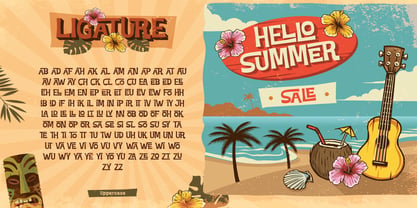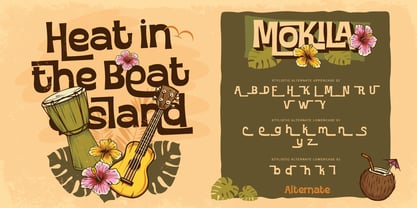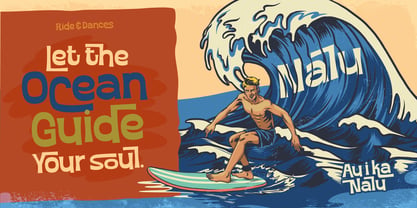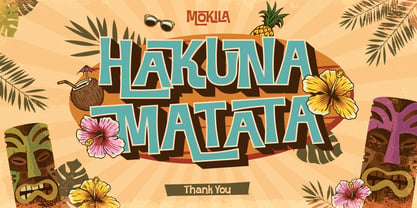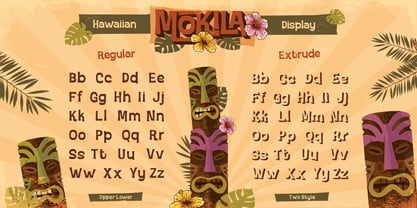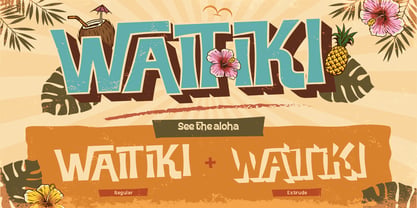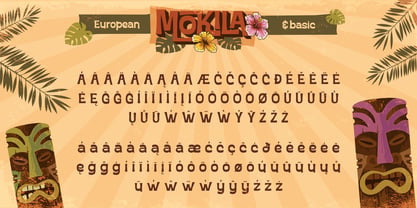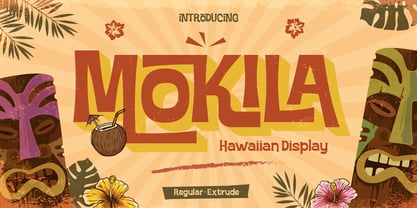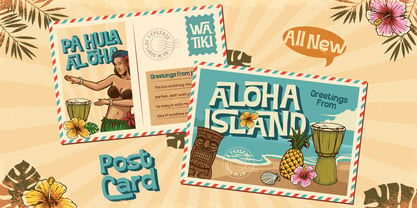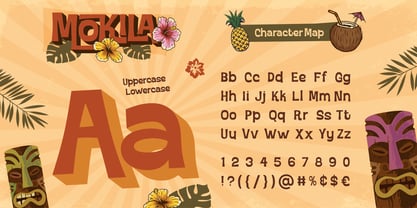
Mokila
by Burntilldead
Say "aloha" to Mokila, a captivating Hawaiian display typeface designed to bring vibrant, exotic, and joyful vibes to your creative projects! Perfectly blending island charm with a bold presence, Mokila is set to become your favorite tropical font for any design needing a splash of paradise. Mokila comes in two versatile styles: Regular and Extrude. Both styles feature strong, chunky letterforms that command attention and ensure excellent readability. While the Regular style offers a solid, classic feel, the Extrude style adds a fantastic 3D depth, making your text pop with an extra layer of fun and adventure. There's just something about its robust design that subtly whispers tales of island exploration and sunny escapades! Mokila good for party invitations, resort branding, travel agency promotions, restaurant menus, bar signage, or café branding, posters, headlines, product packaging, logos, surf shop, stickers and so on.
Features:
• Uppercase & Lowercase
• Number
• Punctuation
• Alternate
• Ligatures
• Multilingual